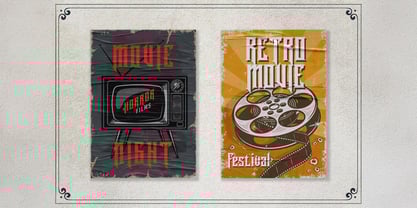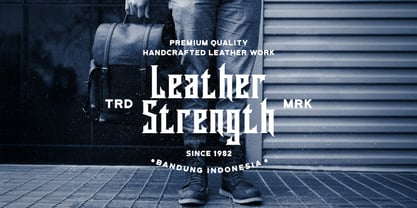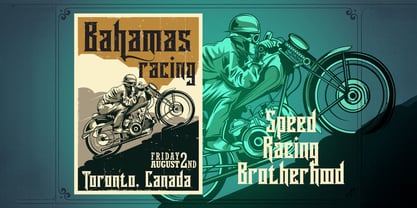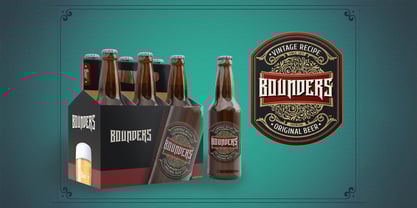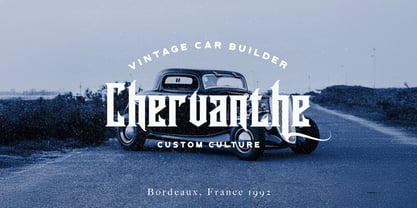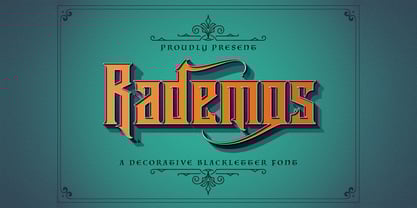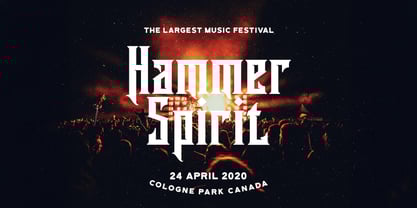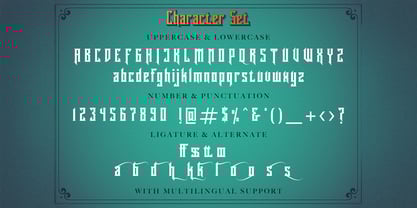
The Rademos Font Family was designed by Virgiawan Listanto and published by Stringlabs Creative Studio. Rademos contains 1 styles.
Rademos is a striking Blackletter font that channels the bold, dramatic essence of traditional calligraphy with a modern twist. Its sharp, intricate details and strong, commanding presence make it perfect for projects that require a touch of history and elegance.